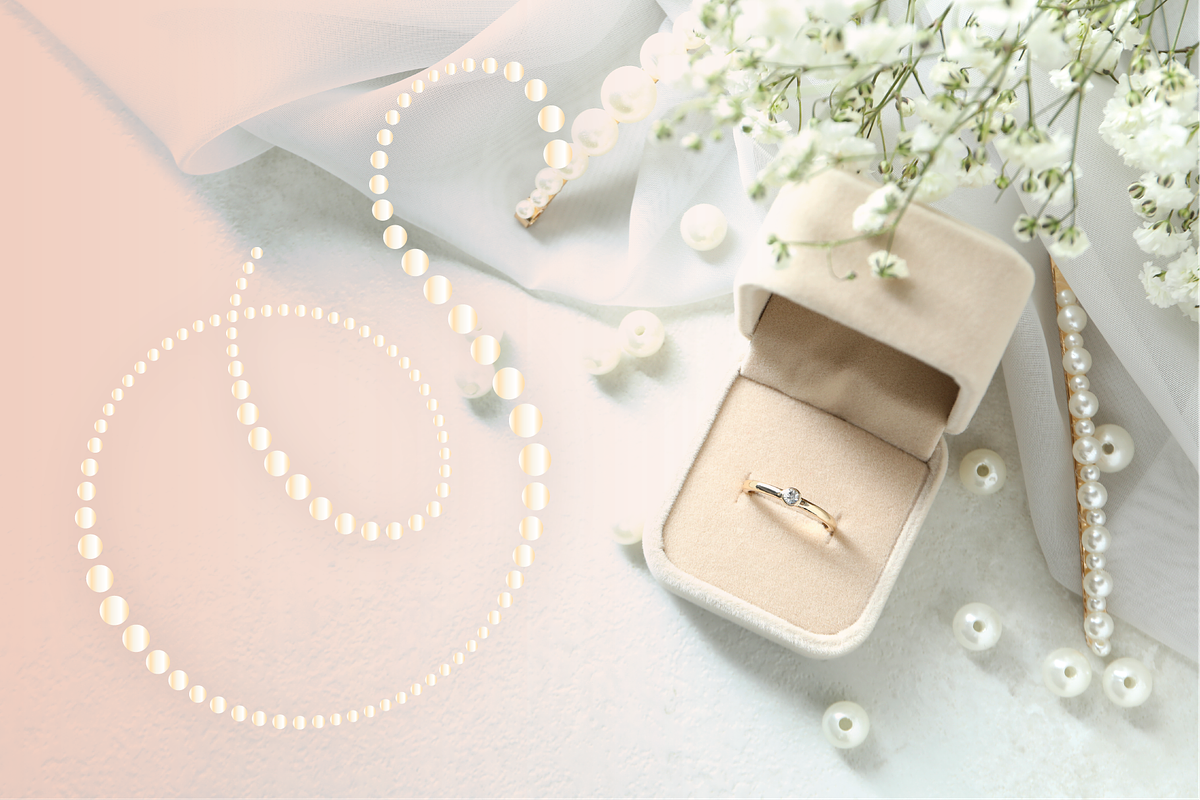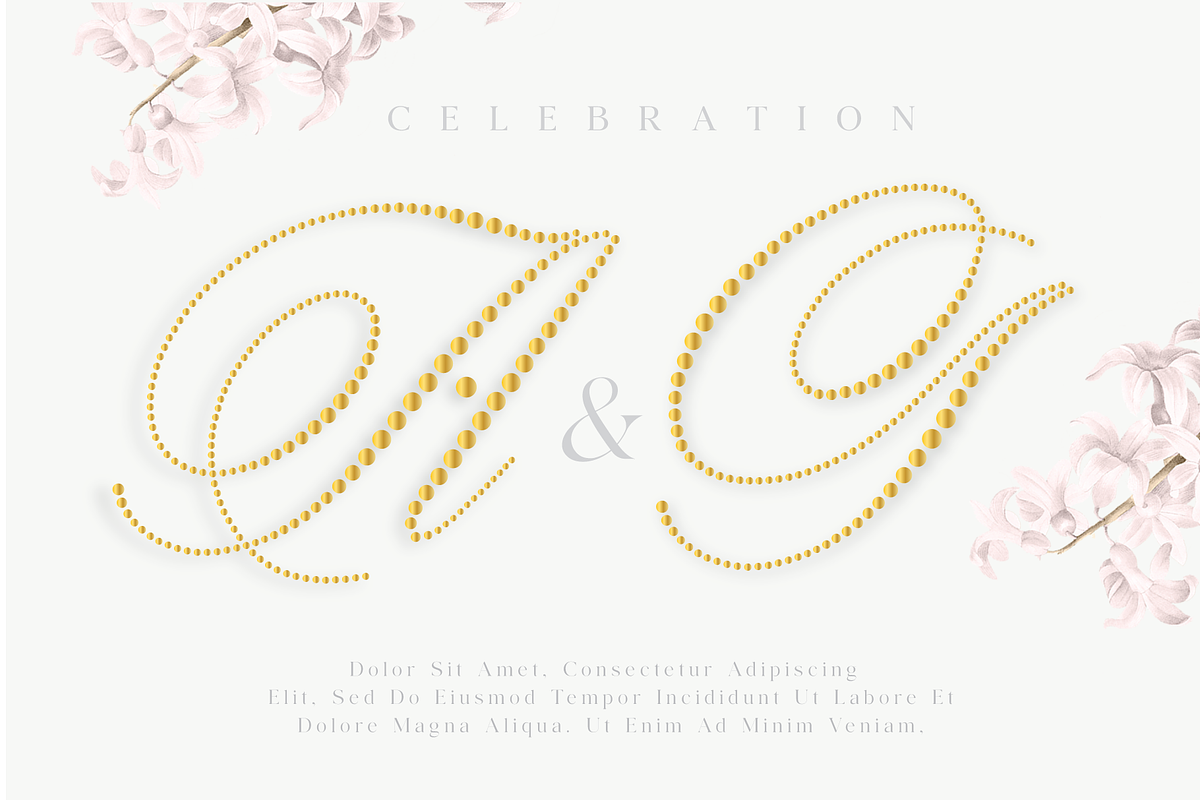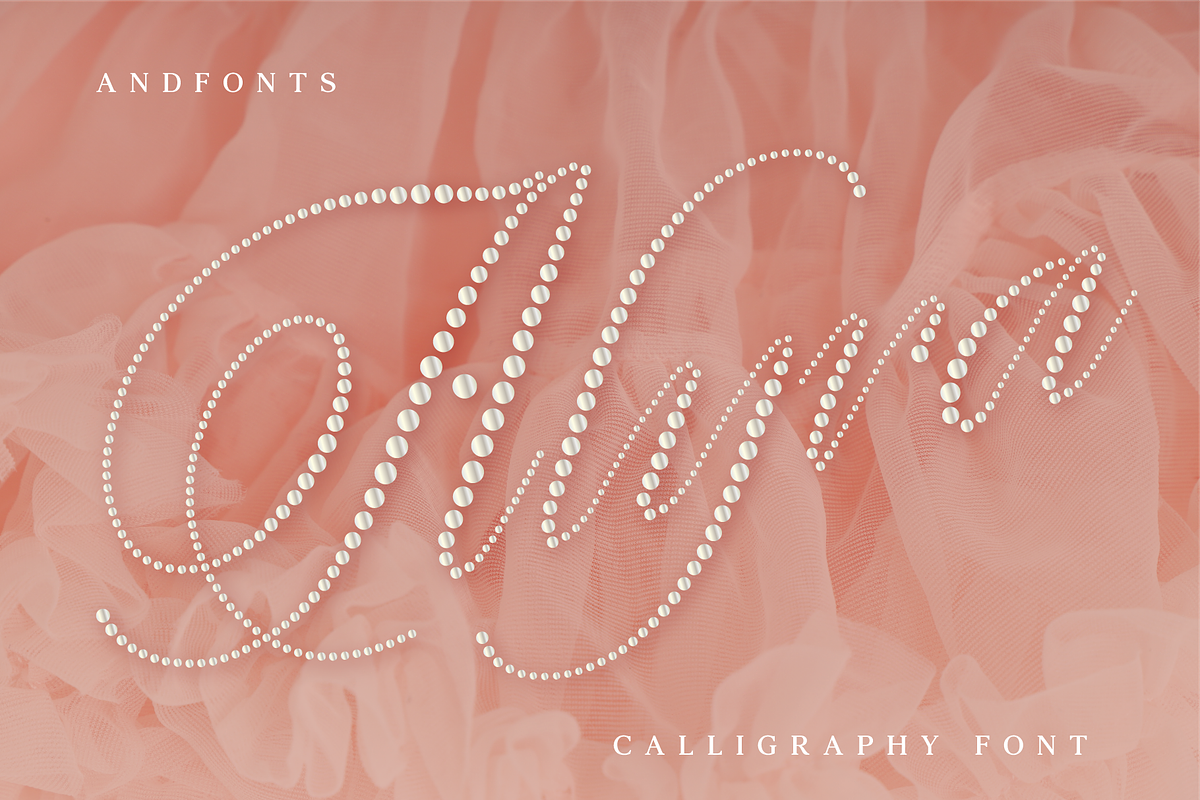
Alyra Calligraphy font
Alyra is a unique calligraphy font that combines elegance, richness, and sophistication in its design. Created entirely using dots, this font has a distinct style that sets it apart from traditional calligraphy fonts. The dots are strategically placed to form each letter, resulting in a beautiful, flowing script that is both eye-catching and easy to read.